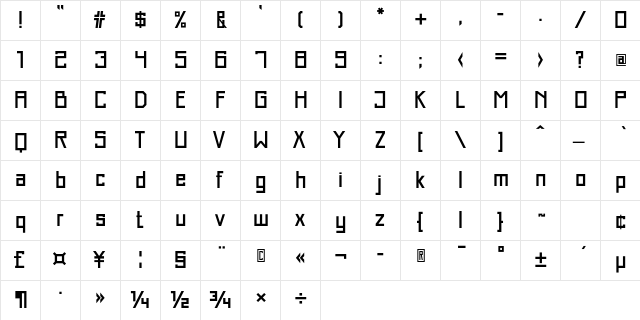
Just Square LT Std Cyrillic Medium
Design Context for Just Square LT Std Cyrillic Typeface
Just Square LT Std Cyrillic takes a measured approach to typography — its balanced proportions and neutral character make it a reliable workhorse for both digital and print work. Its slender proportions lend an understated elegance to any composition.